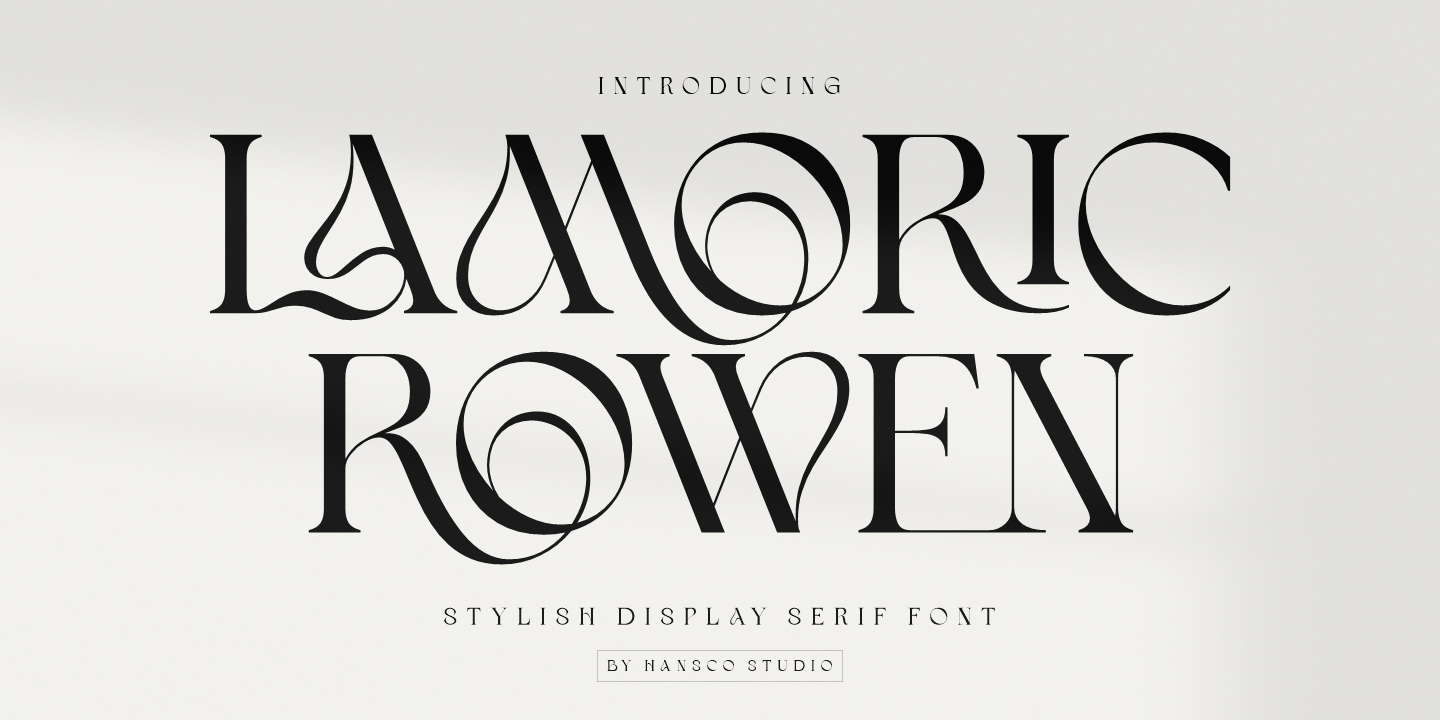
Discover the elegant Lamoric Rowen Font Free Download, a classy display serif typeface by HansCo Studio that blends romantic vibes with modern sophistication. This font is perfect for creating a luxurious, versatile aesthetic. However, please note that you must purchase this font for commercial use. For testing purposes, you can download it for free and explore its unique style.
The Lamoric Rowen Font is ideal for various applications, such as designing sophisticated logos, crafting elegant wedding invitations, creating stylish posters, or adding a refined touch to branding, packaging, and product labels. Its versatility, with PUA-encoded glyphs, ligatures, and stylistic alternates, makes it a top choice for projects that demand a modern yet timeless look.
Why is the Lamoric Rowen Font Free Download so exciting? Its graceful serifs and artistic curves offer a perfect balance of sharp angles and smooth lines, evoking a sense of romance and luxury. The font’s distinctive letterforms ensure your designs stand out with a polished, professional charm, ideal for upscale creative projects.
The Lamoric Rowen Font family includes a single style, Lamoric Rowen Regular, with 268 glyphs for creative flexibility. This streamlined design allows you to access charming swashes and alternates via Character Map or Font Book, perfect for both print and digital media.